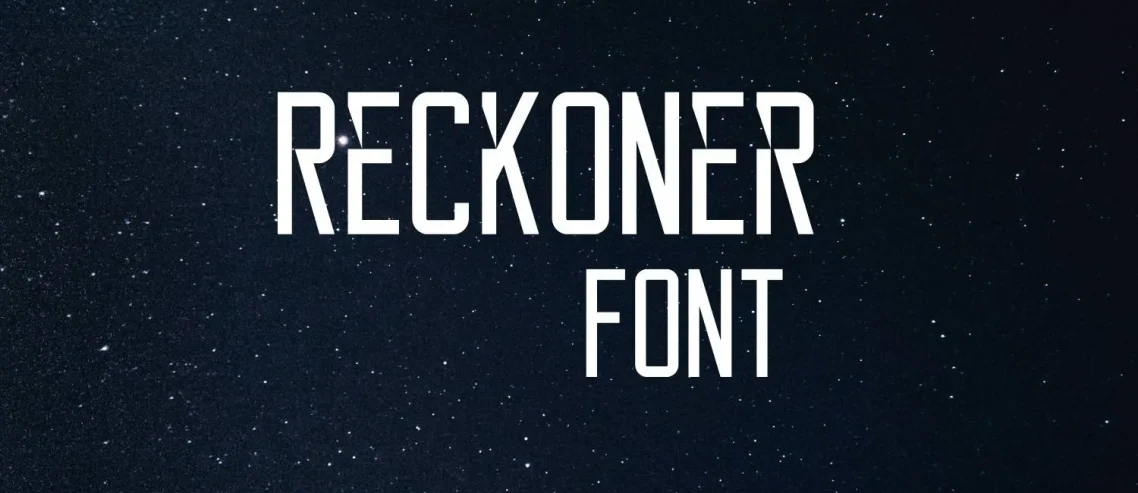
Reckoner Font is a sans-serif typeface designed by Vassil Kateliev. The design is based on the geometric shapes of circles and triangles.
Reckoner Typeface was released in 2012 and is currently available in four weights: light, regular, bold, and black. The typeface supports Latin, Cyrillic, and Greek character sets.
Reckoner Font Info
Name | Reckoner Font |
Designer | Vassil Kateliev |
Style | Sans Serif |